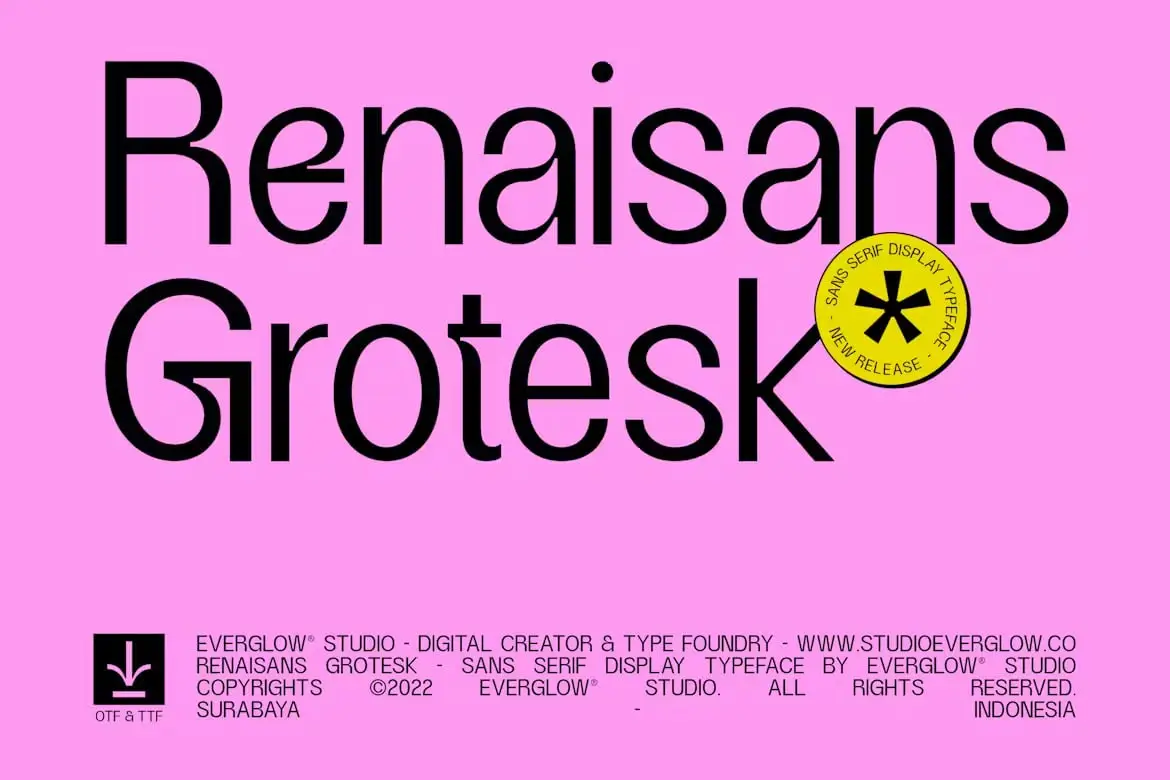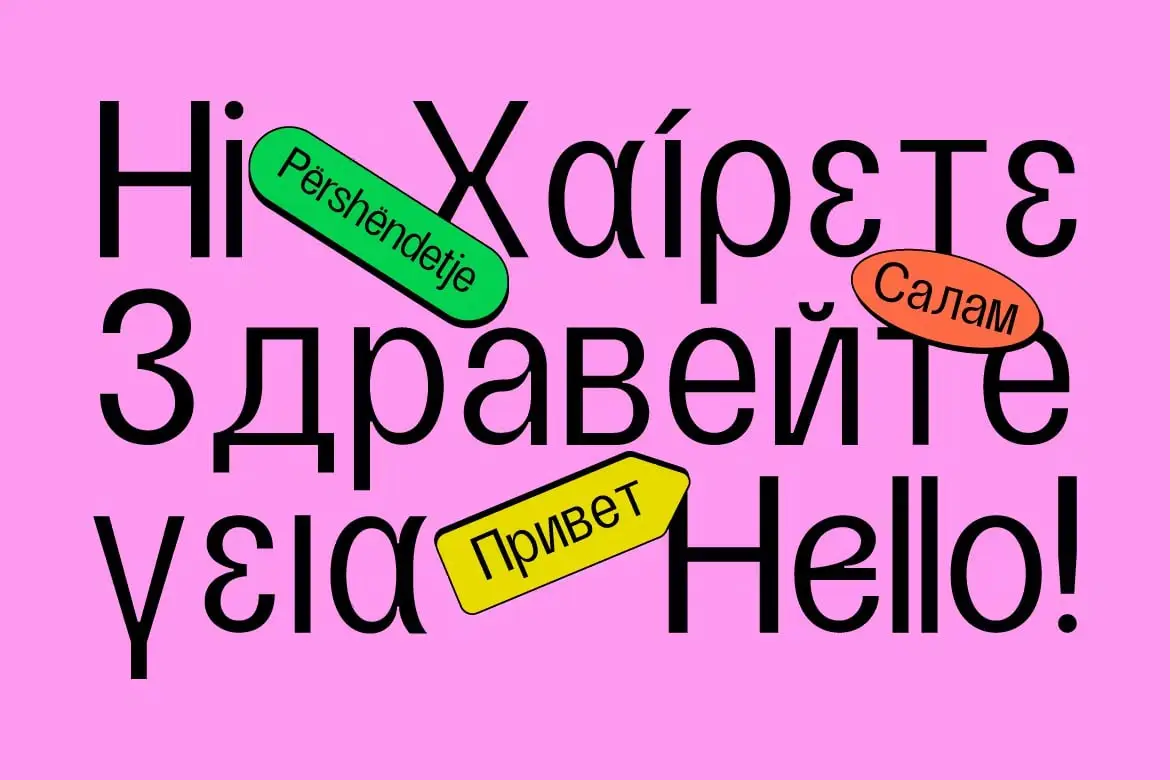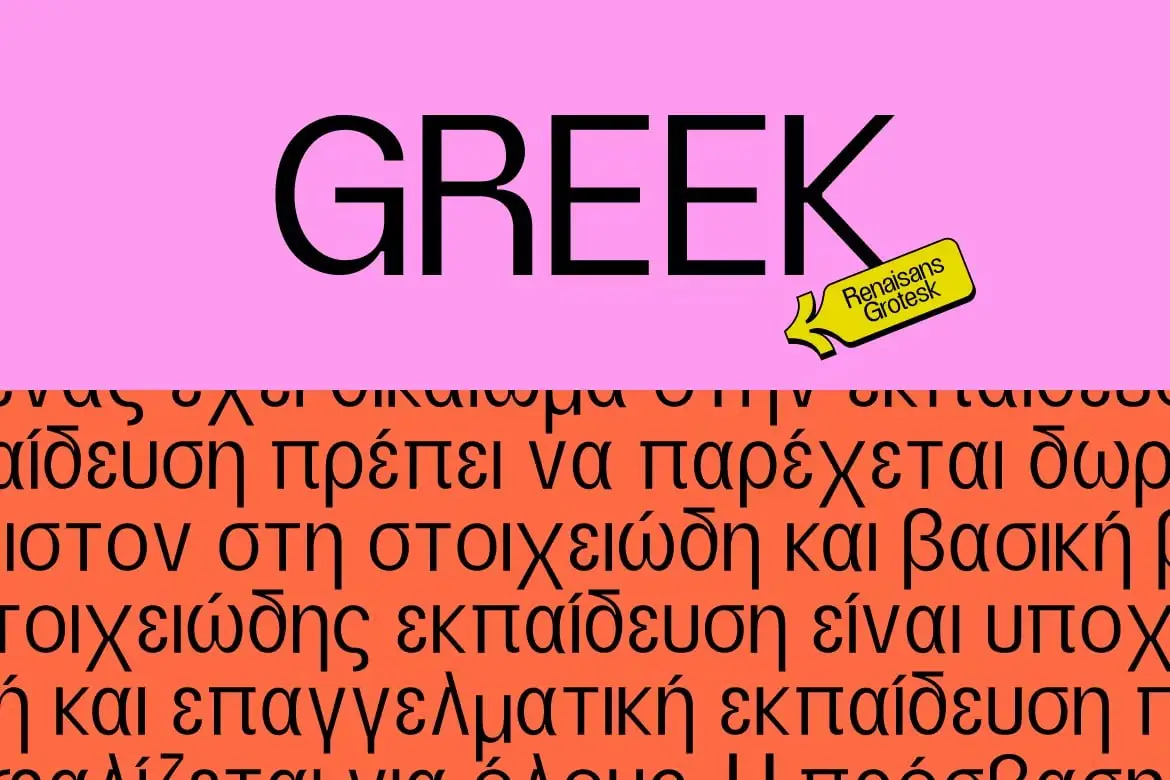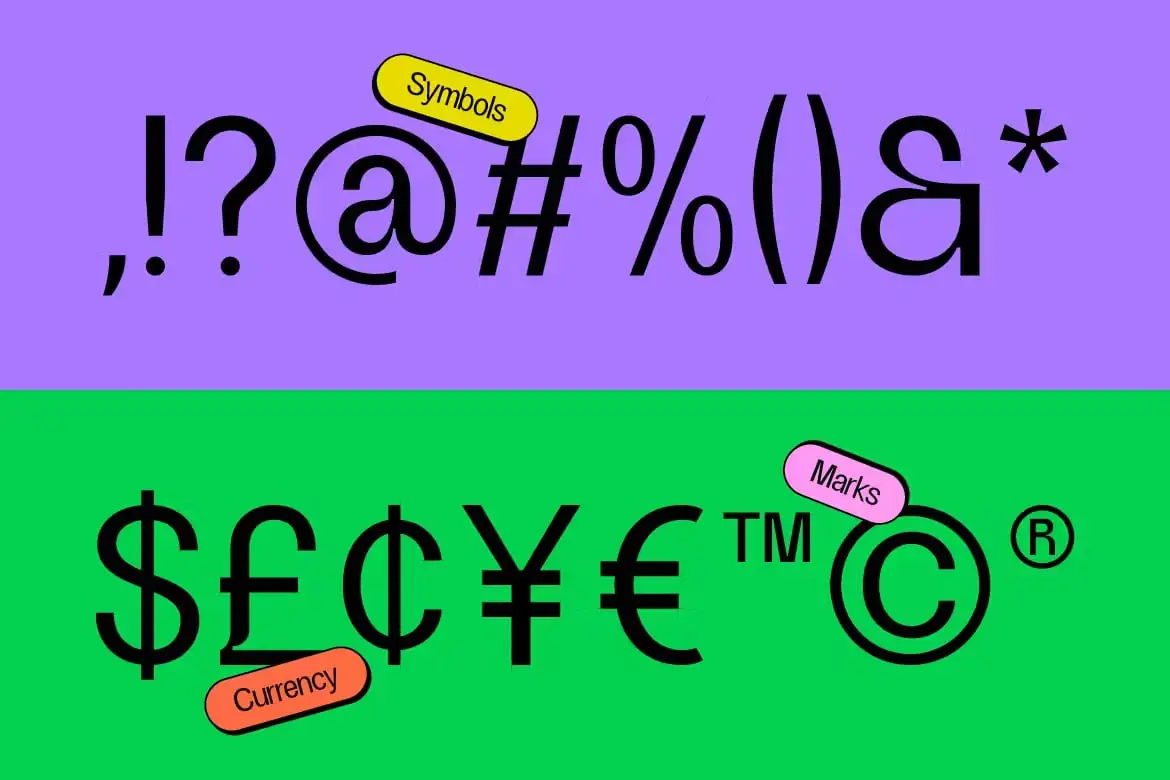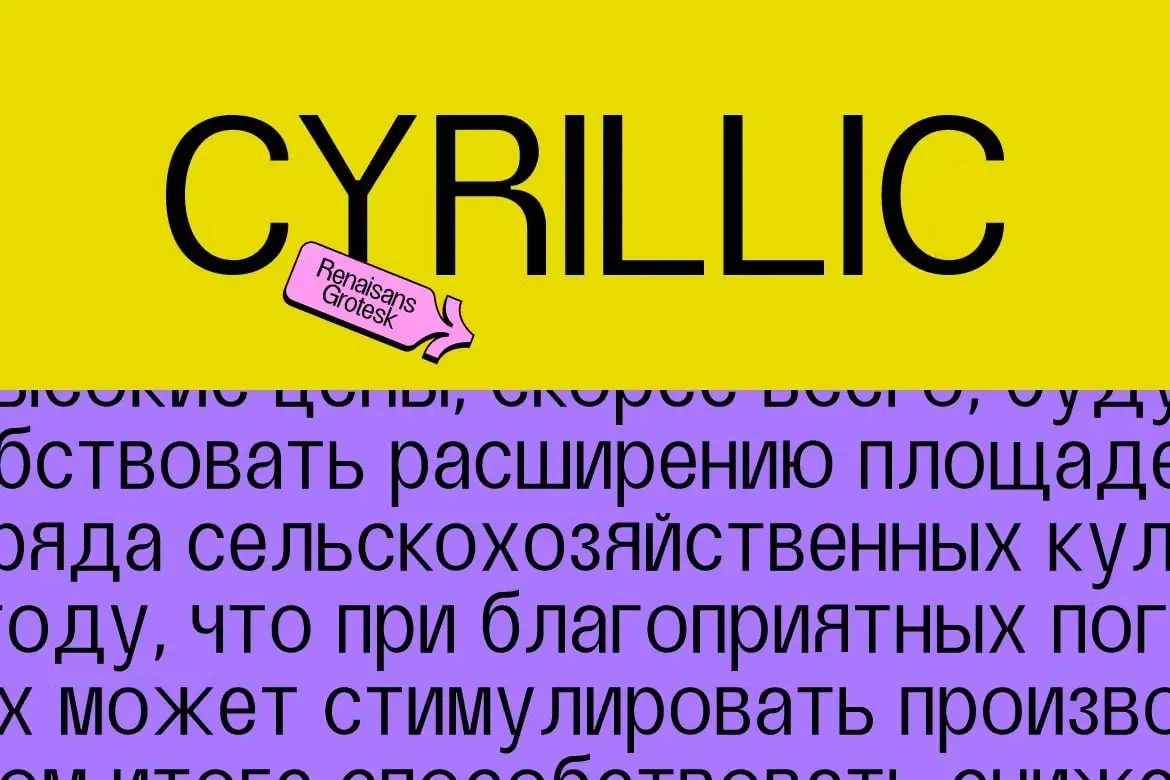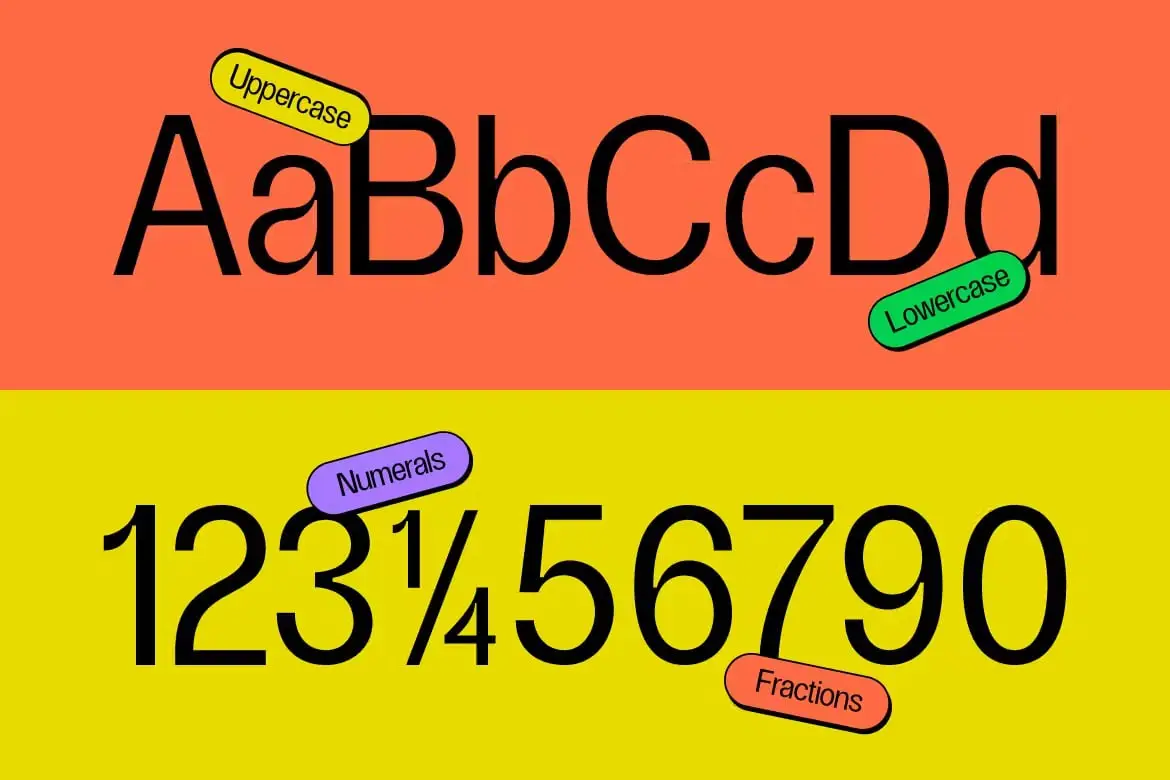
Renaisans Grotesk is a modern sans serif display typeface designed to bring a touch of elegance and clarity to your projects. With its clean lines and geometric forms, this typeface is perfect for a variety of applications, from branding and logos to web and print materials.
- Geometric and contemporary design
- Clear legibility at various sizes
- Stylish and modern aesthetic
- Styles: Regular, Bold, Italic
- Ideal for headlines, posters, and promotional materials
- Use in digital interfaces for a modern look
- Pair with contrasting serif fonts for a balanced design
Renaisans Grotesk-Sans Serif Display Typeface